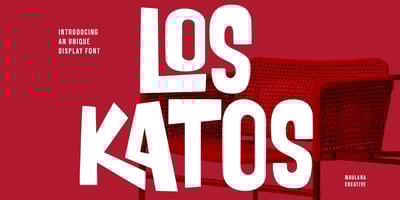
Loskatos Font Family was designed by Gilang Maulana and published by Maulana Creative. Loskatos contains 1 styles and family package options. Loskatos is a Fun Display font. With Bold sharp stroke, fun character with a bit of ligatures and alternates. To give you an extra creative work. Loskatos font support multilingual more than 100+ language. This font is good for logo design, Social media, Movie Titles, Books Titles, a short text even a long text letter and good for your secondary text font with script or signature. Make a stunning work with Loskatos font. Cheers, MaulanaCreative